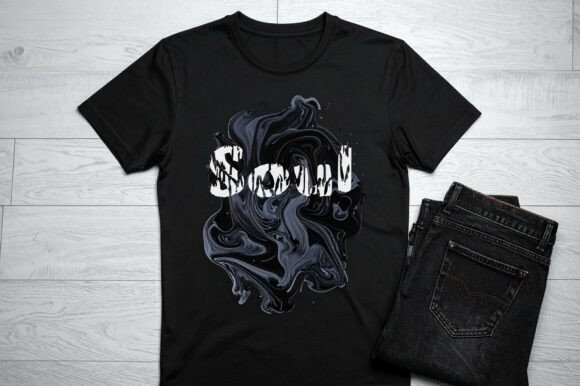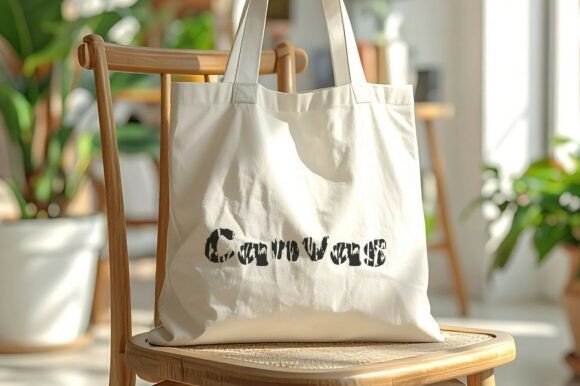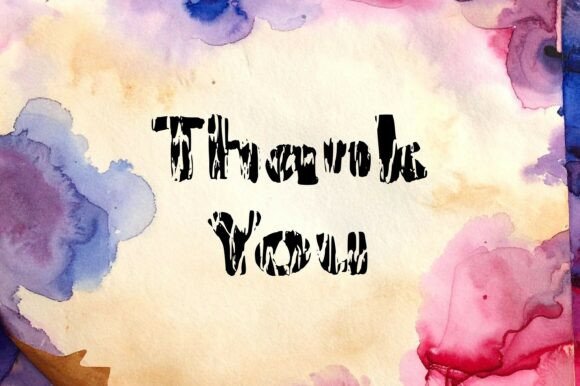
The Birth of Rebellion: Unveiling the Cengkar Font
Imagine you’re strolling through a thrift store, and amidst the eclectic mix of second-hand treasures, you stumble upon a vintage band tee that speaks to your soul. The distressed font, a true reflection of the era, screams with a rebellious spirit that resonates with your inner nonconformist. This is the exact feeling that the Cengkar font embodies, a display typeface that radiates authenticity and unapologetic character.
Designed to make a statement, the Cengkar font is a treasure trove for designers seeking to create bold, attention-grabbing visual identities for their projects. Its unique blend of subtle irregularities and textured finishes makes it perfect for crafting a brand image that’s anything but ordinary. Whether it’s a music festival poster, an underground gig flyer, or a merchandise design, the Cengkar font is the perfect companion to amplify your message and leave a lasting impression.
- Unique Characteristics: Cengkar Font features a distinctive, hand-drawn style with intricate details and a touch of elegance, making it suitable for various design applications.
Cengkar Font Review
I’ve been working with the Cengkar Font, and I have to say it’s a decent addition to any design project. ✨ The font’s unique blend of modern and vintage elements makes it a great choice for projects that need a touch of sophistication without looking too formal.
- ✨ Great for headings and titles, the font’s bold and elegant look really makes text stand out.
- ✨ The font’s versatility makes it suitable for a wide range of projects, from branding and marketing materials to editorial and digital content.
- ✨ Cengkar Font’s bold weights and italic styles provide plenty of options for customizing text and adding visual interest to designs.
- ⚠️ The font’s readability can suffer at smaller font sizes, which may require designers to use larger font sizes or adjust the line spacing.
- ⚠️ Some users may find the font’s unique style too bold or overwhelming, which could impact its usability in certain contexts.
- ⚠️ The font’s availability in only a few weights and styles may limit its use in complex or multi-layered designs.
Overall, I think Cengkar Font is a solid choice for designers who want a stylish and versatile font that can add a touch of sophistication to their projects. While it may have some limitations, the font’s unique style and flexibility make it a great addition to any design arsenal.